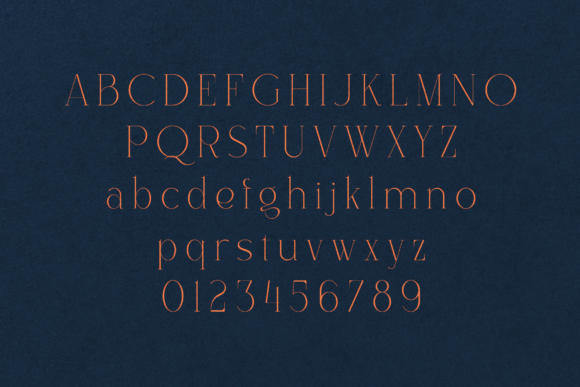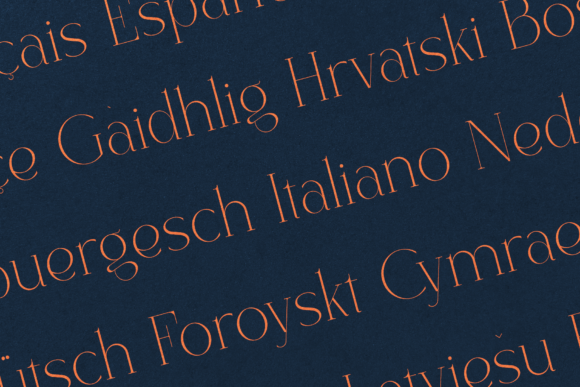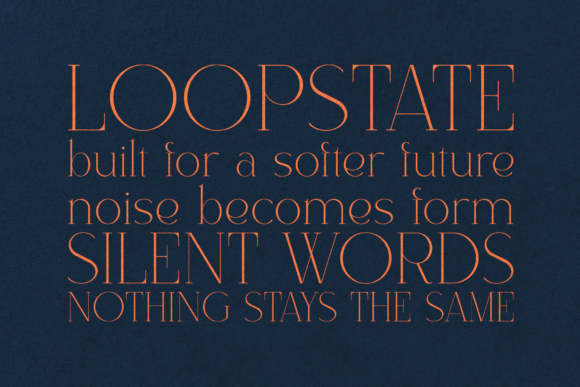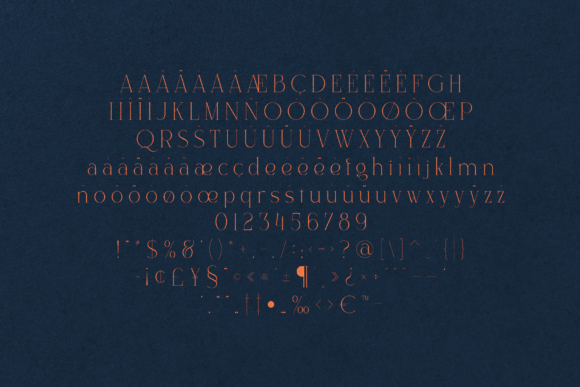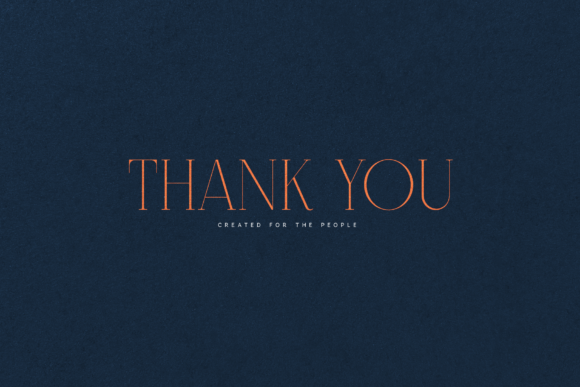
Introducing Alora Font: Elevate Your Design with Timeless Luxury
In the world of typography, few fonts manage to convey the essence of luxury and sophistication as effortlessly as Alora Serif. This refined, high-contrast serif typeface is meticulously designed to bring a touch of modern class and classical proportions to branding and editorial design. With its graceful curves, delicate serifs, and elegant vertical stress, Alora Serif is the ultimate choice for designers aiming to elevate their work.
The Essence of Alora Serif
Alora Serif is more than just a typeface; it’s an experience. It embodies a timeless yet modern luxury feel, making it perfect for projects that demand a high level of sophistication. The letterforms are carefully balanced to create dramatic headlines while maintaining readability and refinement. This delicate balance ensures that Alora Serif stands out in any design, whether it’s used for minimalist logo designs, luxury branding, or high-fashion magazine layouts.
Perfect Applications for Alora Serif
When used as a header, Alora Serif creates a stunning focal point, especially when paired with airy white space and a muted, earthy color palette. This typeface shines in large-scale typography, making it perfect for:
- Fashion branding: Alora Serif brings a level of elegance and poise that is unmatched in the fashion world.
- Beauty packaging: Its refined and sophisticated look makes it ideal for beauty brands looking to convey luxury.
- Luxury logos: The high-contrast serifs and elegant curves make Alora Serif a top choice for luxury brand logos.
- Editorial layouts: Whether it’s a magazine, journal, or any form of editorial content, Alora Serif adds a touch of class.
- Magazines: Its readability and aesthetic appeal make it perfect for magazine titles, headers, and key content.
Why Choose Alora Serif?
Alora Serif is not just another typeface; it’s a design statement. Here are a few reasons why it stands out:
- Timeless Appeal: Unlike trendy fonts that fade with time, Alora Serif’s classic design ensures it remains relevant.
- Versatility: It can be used in a variety of design projects, from digital platforms to print materials.
- Readability: Despite its elegant and delicate design, Alora Serif maintains high readability, even in smaller sizes.
- Customization: Its high-contrast features allow for creative and impactful design variations.
Alora Serif in Design Projects
For designers and crafters looking to make a statement, Alora Serif offers endless possibilities. Here are a few ideas:
- Wedding Stationery: Bring elegance and sophistication to wedding invites, menus, and programs.
- Boutique Brand Identities: Elevate your brand with a logo and branding materials that exude luxury.
- Luxury Product Advertising: Use Alora Serif to advertise high-end products with a typography that matches their luxury status.
Alora Serif is more than just a typeface; it’s a tool for designers to convey luxury, elegance, and sophistication. Its timeless appeal, versatility, and high readability make it an essential font for any designer looking to elevate their work. Whether you’re working on fashion branding, luxury logos, or editorial layouts, Alora Serif is the perfect choice to bring a touch of modern class and classical proportions to your designs.
Embrace the luxury with Alora Serif. Elevate your designs and make a lasting impression with a typeface that embodies the essence of sophistication and elegance.